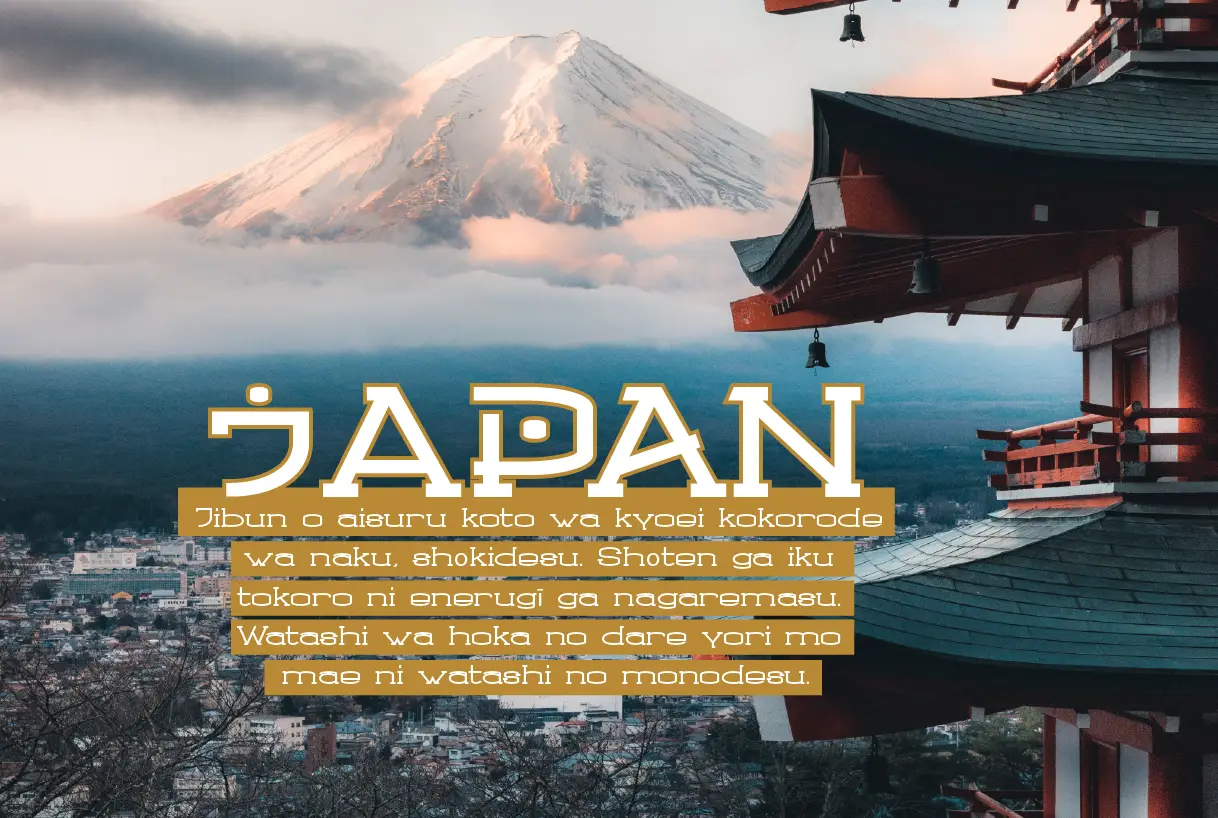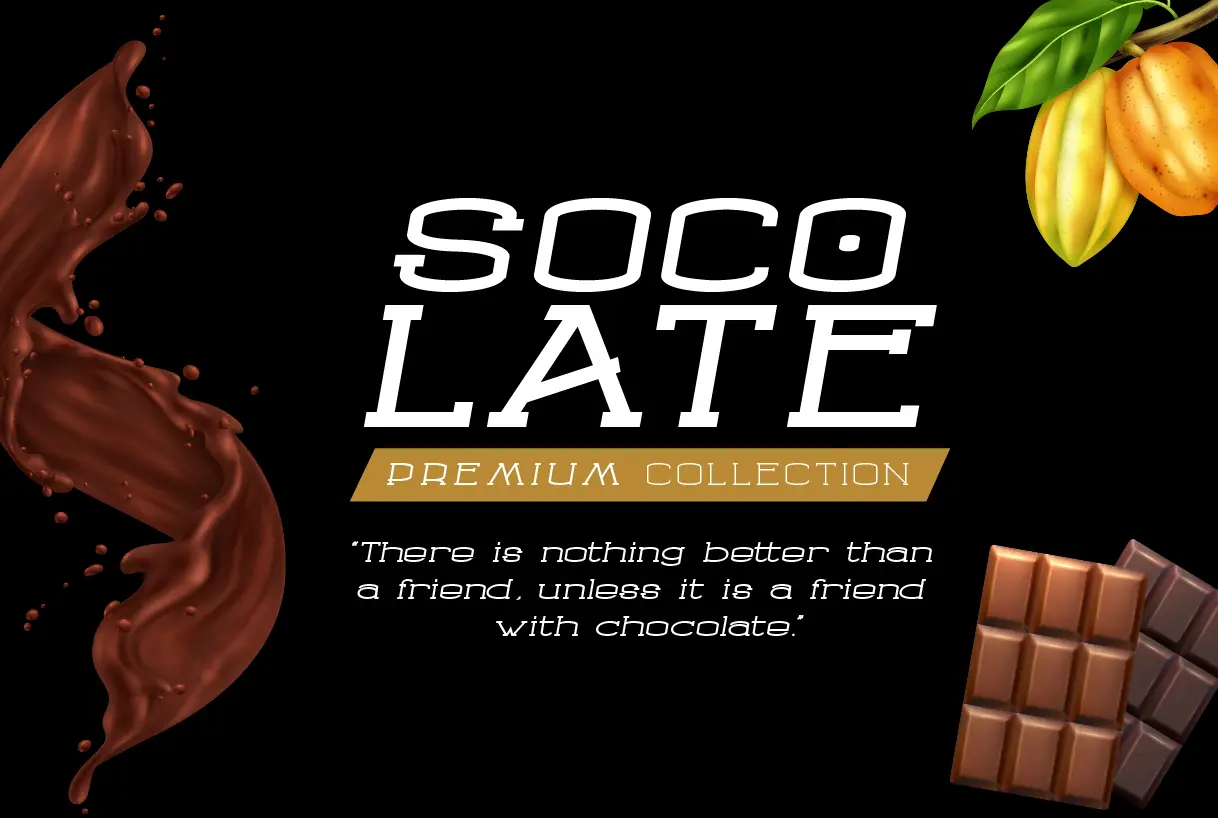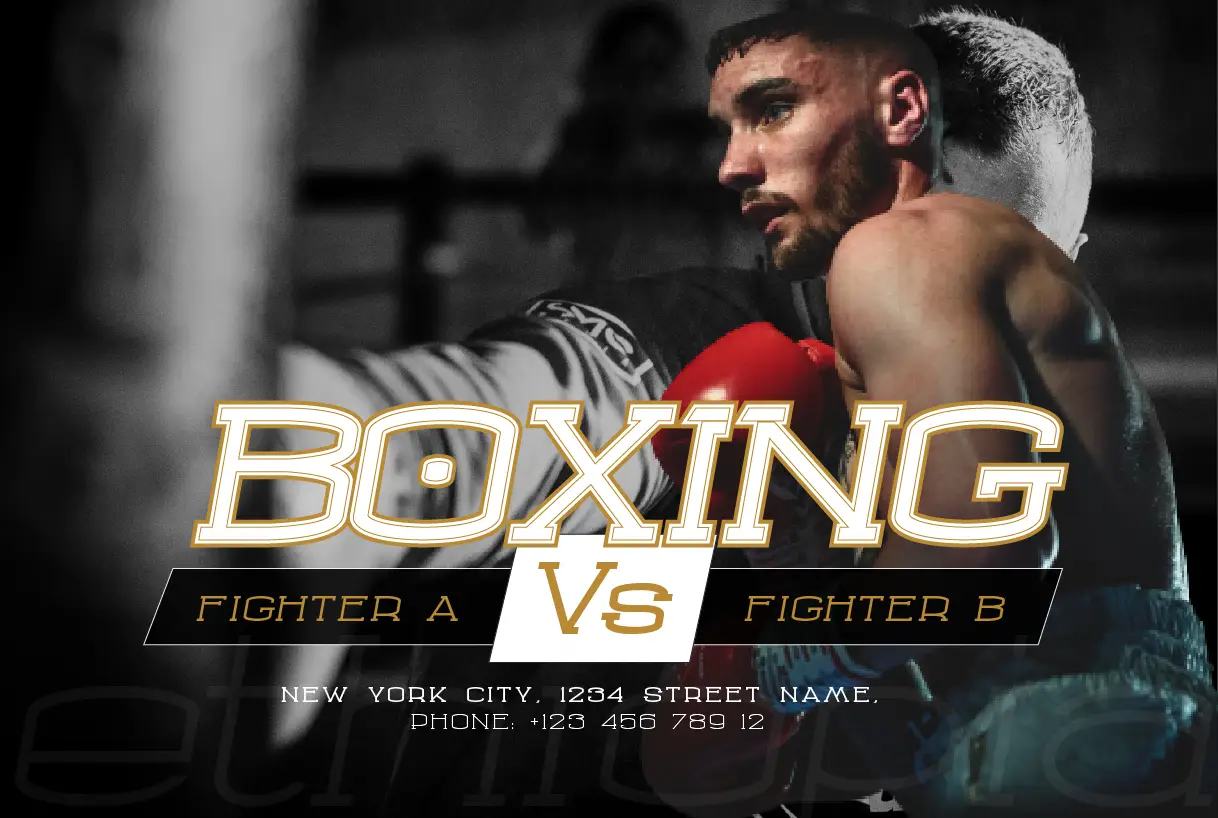
Godan Slab Serif Font
The Godan Slab Serif Font is a versatile typeface designed to bring a touch of elegance and readability to your projects. With its robust slab serifs and clean lines, it is perfect for both digital and print applications.
• Stylish slab serif design
• Multiple weights for varied usage
• Numerals and special characters included
This font is ideal for branding, logos, web design, and print materials. Its strong presence makes it suitable for headlines and body text alike, ensuring your content stands out.